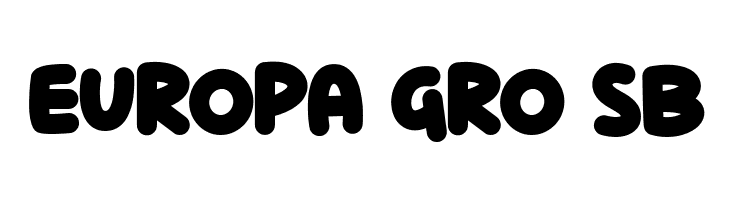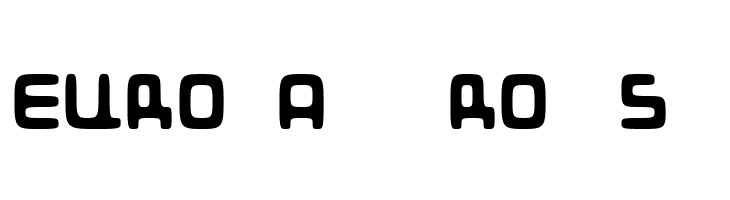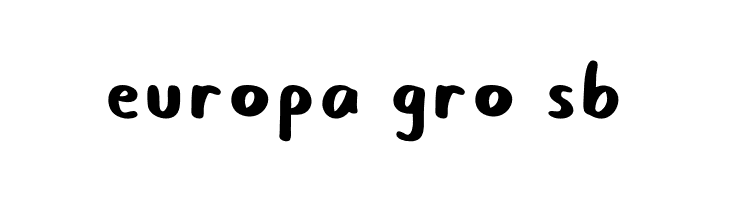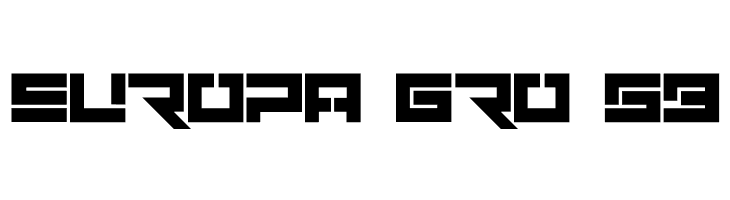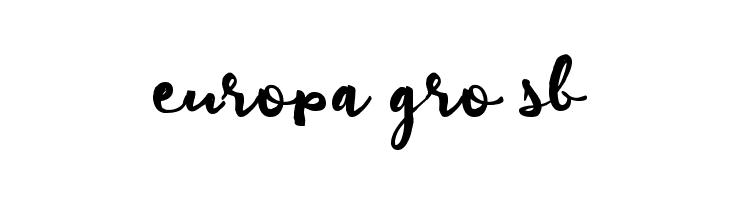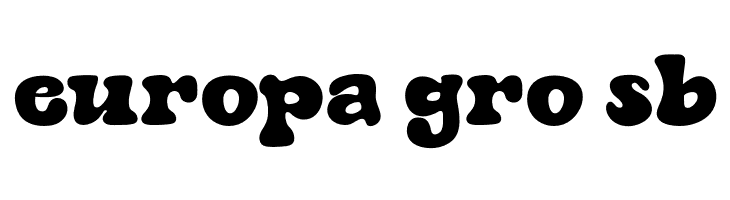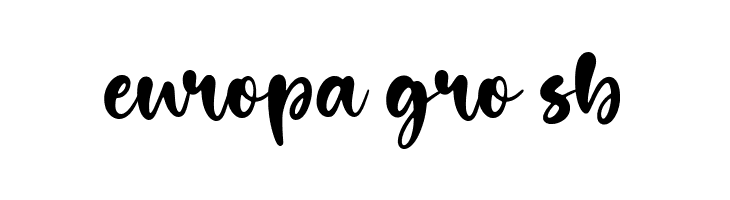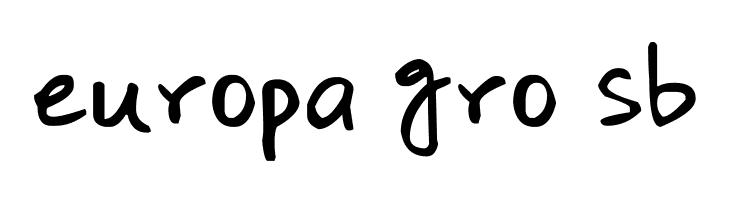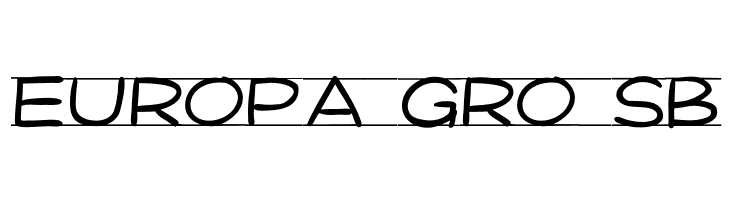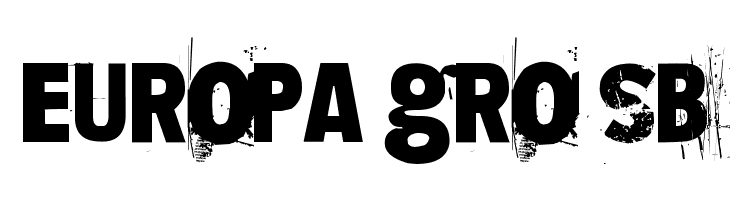
A bold, angular font with a futuristic and aggressive design.
A bold, playful font with rounded edges and a bubbly appearance.
A playful, bold font with rounded, bubbly characters and a whimsical style.
A playful, hand-drawn style font with bold, energetic strokes.
A playful, hand-drawn font with rounded, bubbly characters.
A bold, expressive handwritten font with dynamic cursive letterforms.
A classic serif font with elegant curves and a refined appearance.
Casual handwritten font with a playful style.
A dynamic and expressive handwritten font with fluid, flowing letterforms.